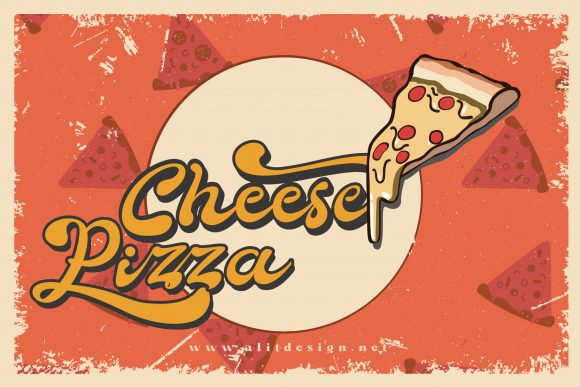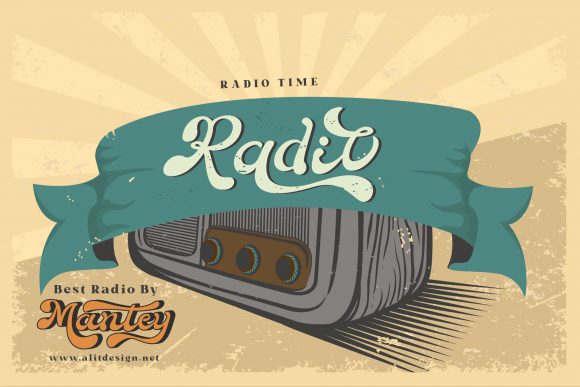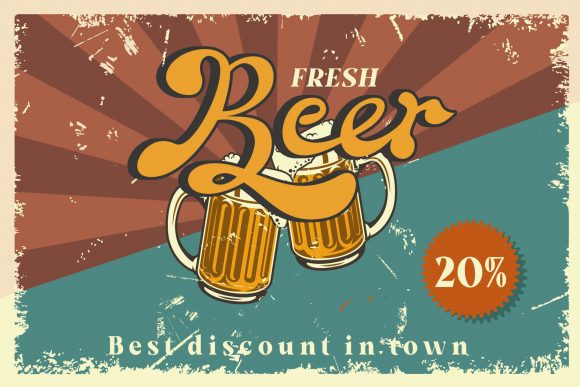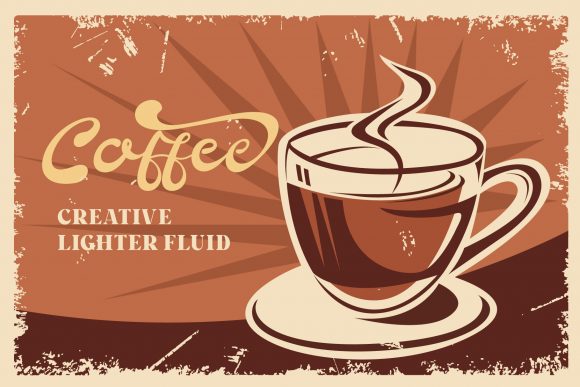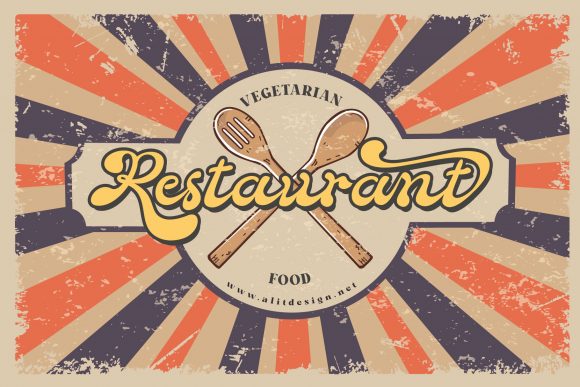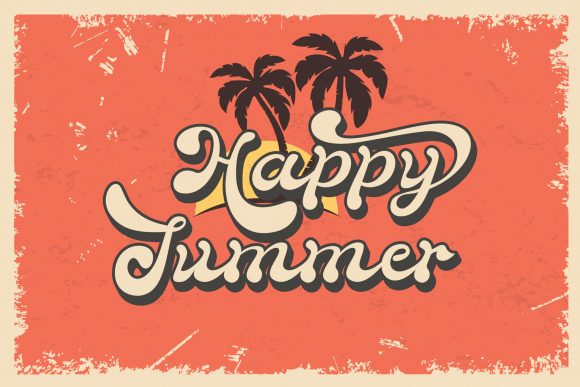
Introduction to Mantaey Font
Do you remember that moment when a font choice completely transformed the look of your design project? For many designers, it’s a moment of pure joy and satisfaction. The Mantaey Font is one of those special finds that can elevate any creative project to the next level.
As a valuable resource for designers, the Mantaey Font offers a unique blend of style and sophistication, making it perfect for a wide range of applications, from logos and quotes to invitations and business cards. With its high-quality design and transparent background, this font is a game-changer for anyone looking to add a touch of elegance to their work.
Key Features of Mantaey Font
- Designed to be versatile, the Mantaey Font is suitable for a wide range of creative projects, from branding and marketing materials to digital art and print designs.
- Size: The font family includes multiple weights, from light to bold, allowing designers to choose the perfect style to suit their creative project.
Honest Review: Mantaey Font
I recently had the chance to work with the Mantaey Font, and I must say it’s been a game-changer for my creative project. As a designer, I’m always on the lookout for high-quality design resources that can help elevate my work.
- ✨ High-quality glyphs and a wide range of styles make it perfect for various design projects.
- ✨ Transparent background makes it easy to use in various design scenarios.
One of the things I love about the Mantaey Font is its versatility. It’s perfect for both digital and print projects, and the font’s modern design makes it suitable for a wide range of creative projects.
However, I did encounter some limitations while working with the font. ⚠️ The font’s weight and style options are somewhat limited, which can make it difficult to achieve a specific design look. Additionally, the font’s performance can be slow on older devices.
Overall, I’m thoroughly impressed with the Mantaey Font. While it may have some limitations, its high-quality design and wide range of styles make it a valuable addition to any designer’s toolkit.
The Mantaey Font is suitable for various design projects, including logos, brochures, business cards, and presentations. Its high-quality design and transparent background feature make it an ideal choice for creative projects.
Getting the Most Out of Mantaey Font
To get the most out of the Mantaey Font, experiment with different font sizes, colors, and styles to match your design requirements. You can also combine the font with other design elements to create visually appealing designs.